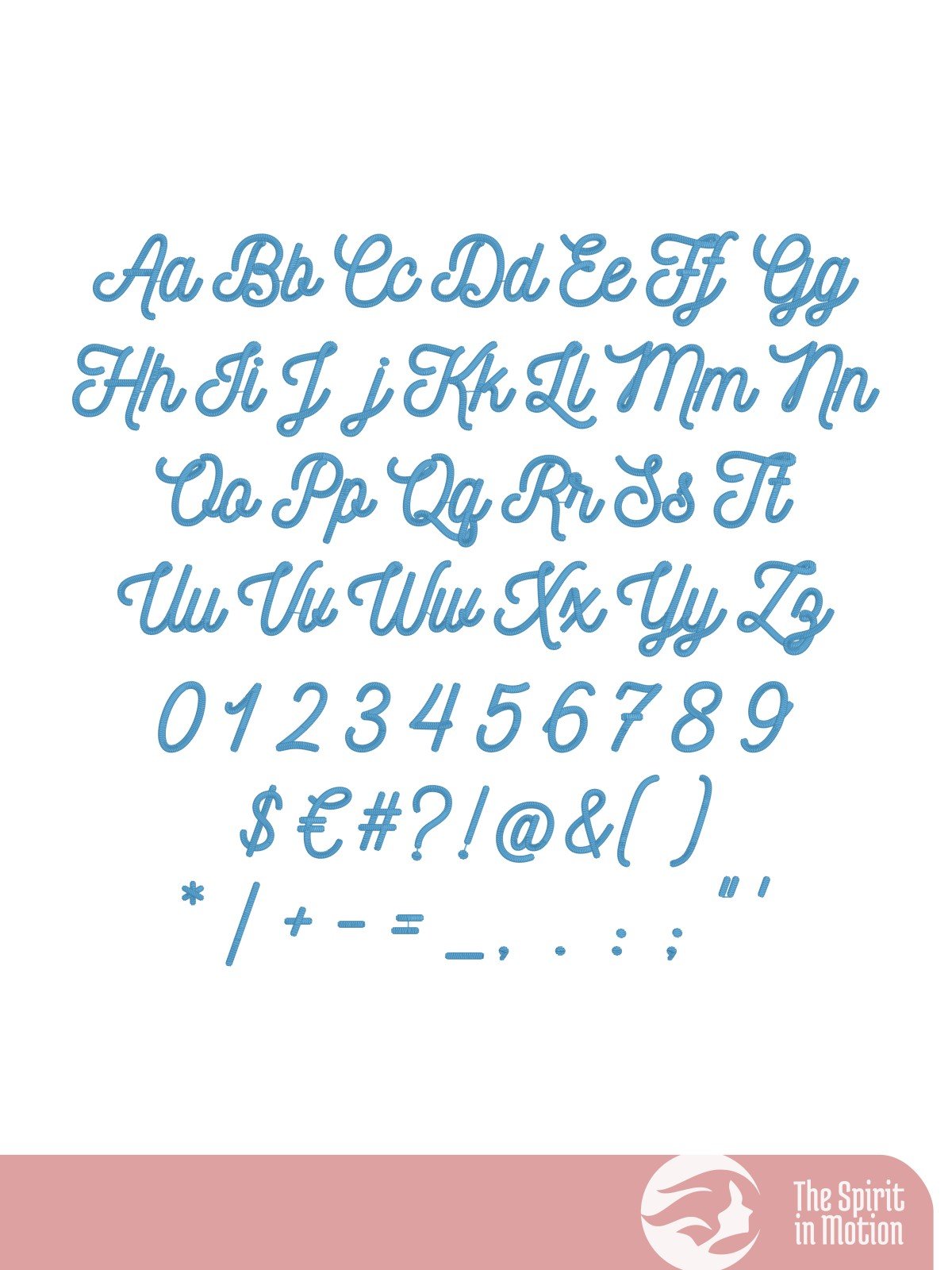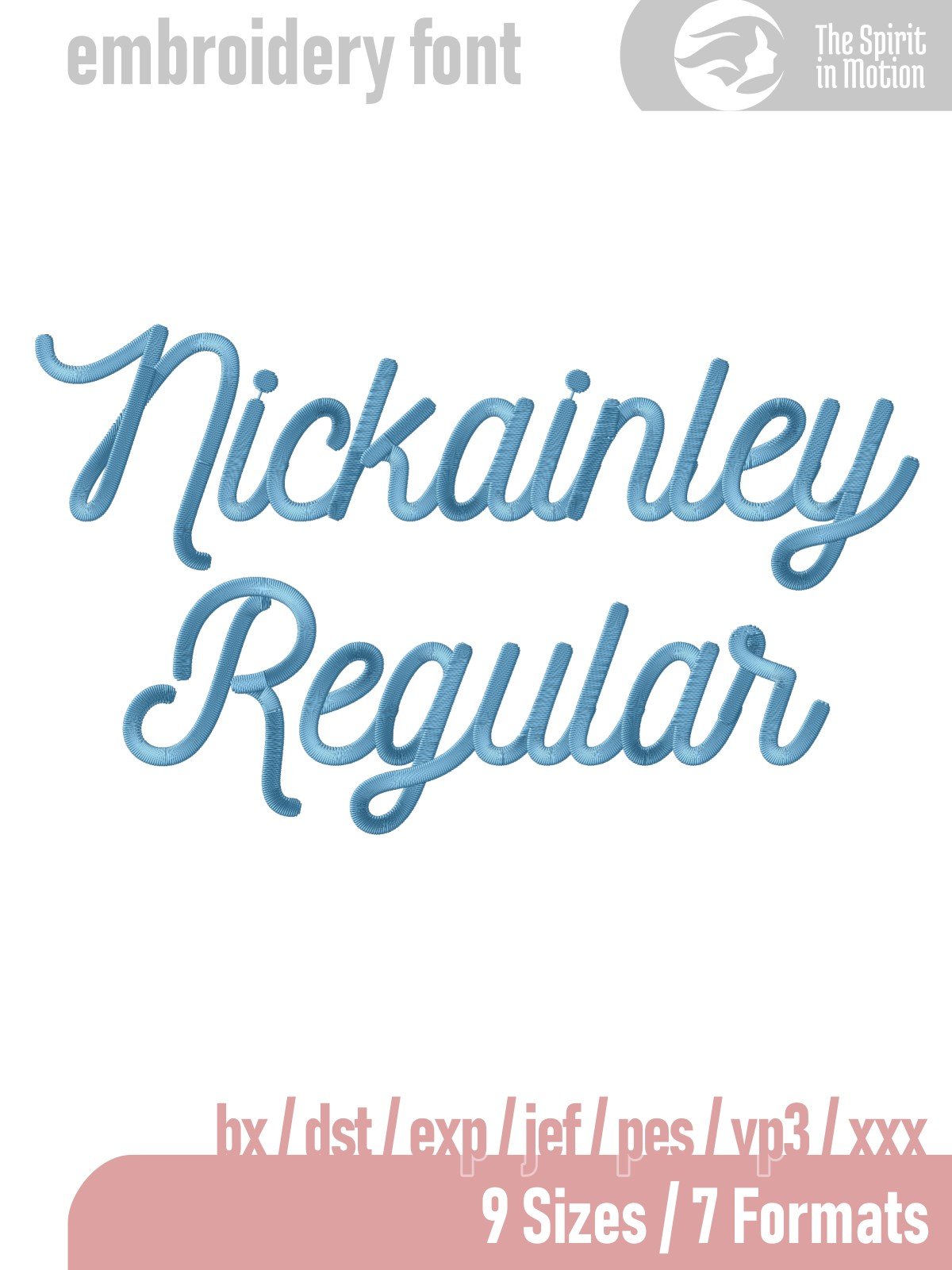
Nickainley Regular Monoline Script Embroidery Font
Nickainley is a smooth and stylish monoline script embroidery font with a modern handwritten feel. Its clean, flowing lines make it ideal for names, quotes, gifts, and decorative stitching. This versatile font adds charm and personality to any project, from everyday items to heartfelt keepsakes.